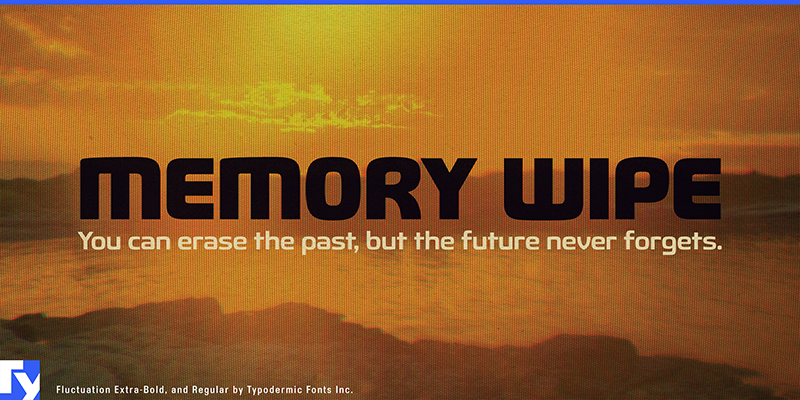
Fluctuation
Fluctuation draws on the language of industrial design. Its forms echo the molded arcs, chamfers, and precision curves found in consumer electronics and appliances, giving the typeface a balance of engineered clarity and subtle warmth. Compact proportions make it well suited to tight UI layouts, tech branding, and signage where space matters. With clean geometry and broad Latin language support, Fluctuation moves easily from dashboards and packaging to editorial design while maintaining a crisp, modern edge. These fonts include a license that allows free commercial use: sometimes referred to as a desktop license. This allows you to install the fonts on a computer and use them to create posters, web graphics, game graphics, t-shirts, videos, signs, logos and more. Read the license agreement for details. If you'd like to embed this font in an app, on the web or anything that's not covered by the desktop license agreement, visit the link below. You'll find distributors who offer different types of licenses, or you can contact me for help. https://typodermicfonts.com/fluctuation/ These free fonts are part of a larger font family. Check out the rest of the family through the link above.